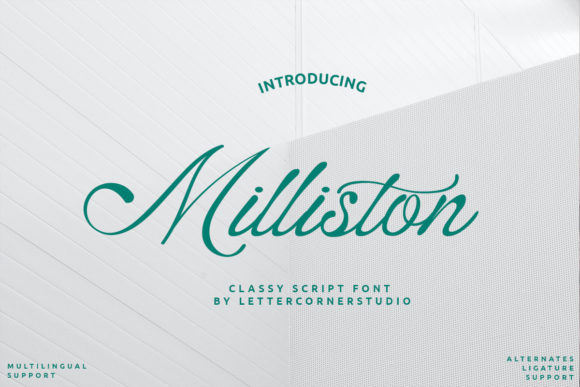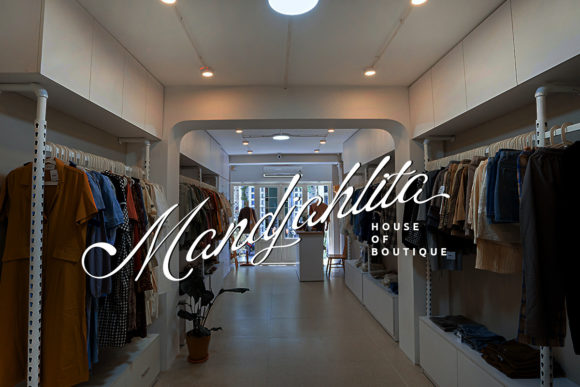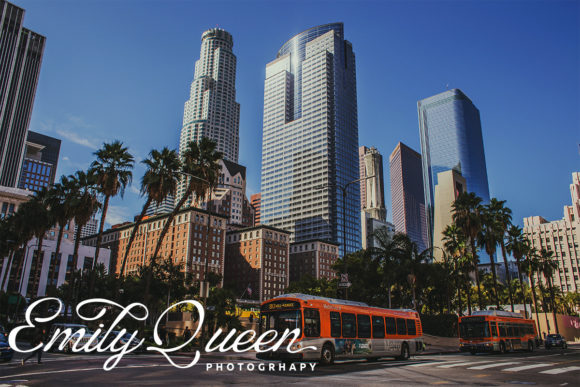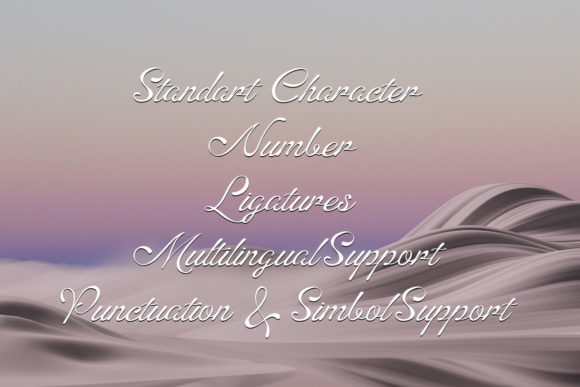
About Milliston Font
Milliston feels equally charming and elegant. It looks stunning on wedding invitations, thank you cards, quotes, greeting cards, logos, business cards and every other design which needs a customized touch.